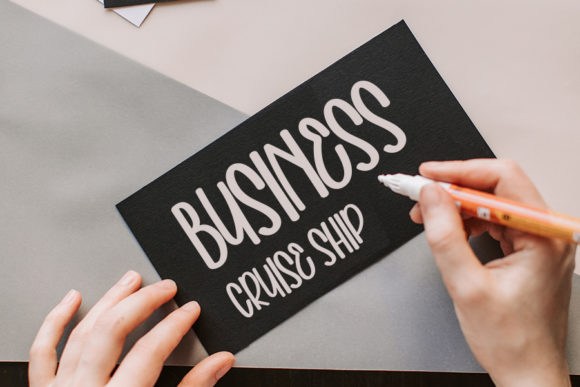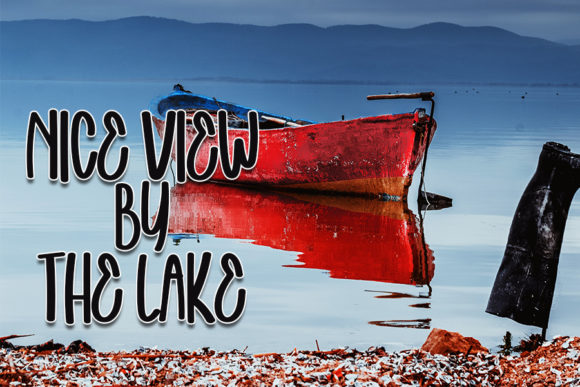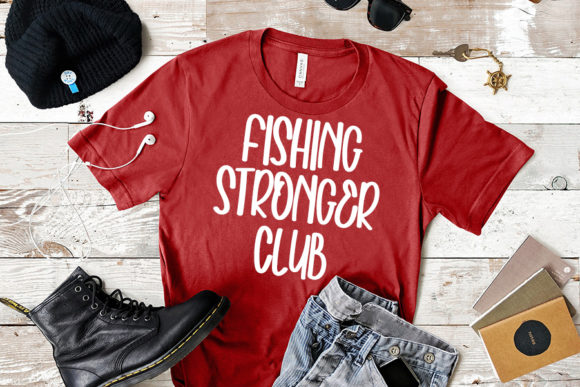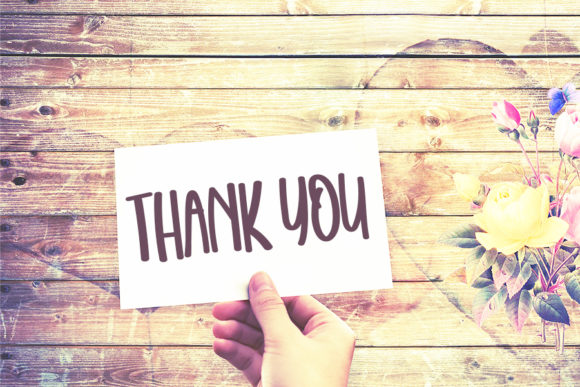
Fishing Hook Font: The Perfect Catch for Your Design Needs
Are you a designer or crafter looking for a unique and eye-catching font to elevate your creative projects? Look no further than the Fishing Hook Font! This fun, bold, and friendly handwritten font is perfect for adding a touch of personality to your branding, product packaging, invitations, quotes, t-shirts, labels, posters, logos, and more.
What Makes Fishing Hook Font So Special?
The Fishing Hook Font is a one-of-a-kind typeface that stands out from the crowd. Its bold and playful design makes it perfect for grabbing attention and adding a touch of whimsy to your designs. The font’s friendly and approachable feel also makes it ideal for creating a connection with your audience and conveying a sense of approachability.
Uses for Fishing Hook Font
The versatility of the Fishing Hook Font is one of its most appealing features. Here are just a few ideas for how you can use this amazing font:
- Branding: Use the Fishing Hook Font to create a memorable and recognizable brand identity that sets you apart from the competition.
- Product Packaging: Add a touch of personality to your product packaging with the Fishing Hook Font, making your products stand out on store shelves.
- Invitations: Create eye-catching invitations for parties, events, and more with the Fishing Hook Font.
- Quotes: Use the Fishing Hook Font to add a touch of inspiration and motivation to your quote designs.
- T-Shirts: Design unique and stylish t-shirts with the Fishing Hook Font that’s sure to turn heads.
- Labels: Use the Fishing Hook Font to create custom labels for your products, gifts, or crafts.
- Posters: Create bold and eye-catching posters with the Fishing Hook Font that’s perfect for advertising, promoting events, or showcasing your art.
- Logos: Use the Fishing Hook Font to create a memorable and recognizable logo that represents your brand or business.
Why Designers and Crafters Love Fishing Hook Font
Designers and crafters love the Fishing Hook Font for its unique and versatile design. Here are just a few reasons why:
- Easy to Read: The Fishing Hook Font is clear and easy to read, making it perfect for body text and headlines.
- Highly Versatile: The font’s bold and playful design makes it suitable for a wide range of design applications.
- Unique and Eye-Catching: The Fishing Hook Font is a one-of-a-kind typeface that adds a touch of personality to any design.